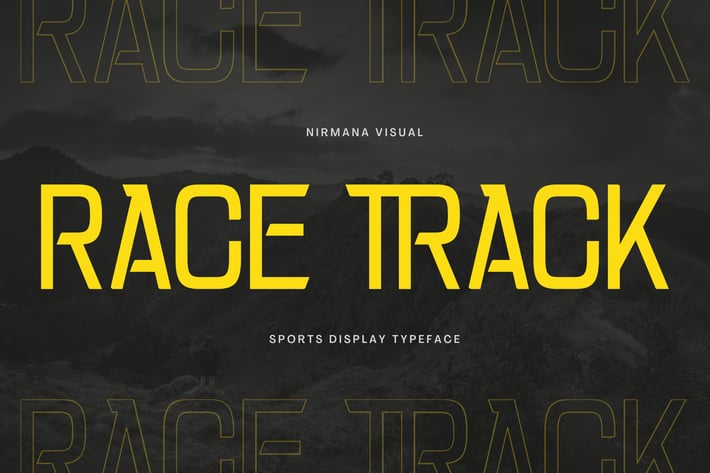
Race Track - Sports Font
Race Track - Sport Display with strong and Sporty. very suitable for the title, logo, typography, clothes, magazines, brochures, packaging and much more for your design needs, making your designs more modern and professional.